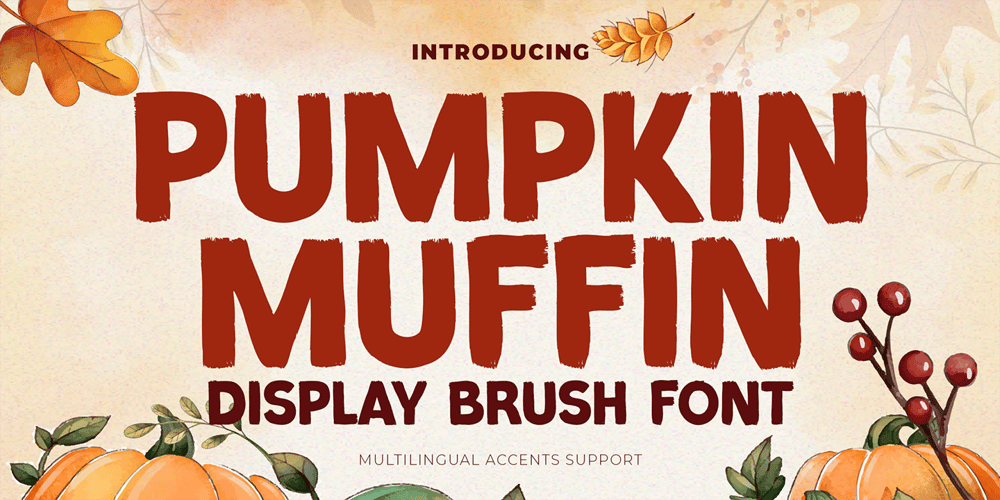
Pumpkin Muffin Font Family was designed by Abdul Malik Wisnu, Anang Fibriyanto and published by Gassstype. Pumpkin Muffin contains 1 styles and family package options. Hello Everyone, introduce our new product Font Pumpkin Muffin is a Display Brush Font.This is a Textured Natural Style and classy style with a clear style and dramatic movement.This font Pumpkin Muffin is great for your next creative project such as logos, printed quotes, invitations, cards, product packaging, headers, Logotype, Letterhead, Poster, Design this font is great for your creative projects such as watermark on photography, and perfect for logos & branding, invitation,advertisements,product designs, stationery, wedding designs,label ,product packaging, special events or anything that need handwritting taste.